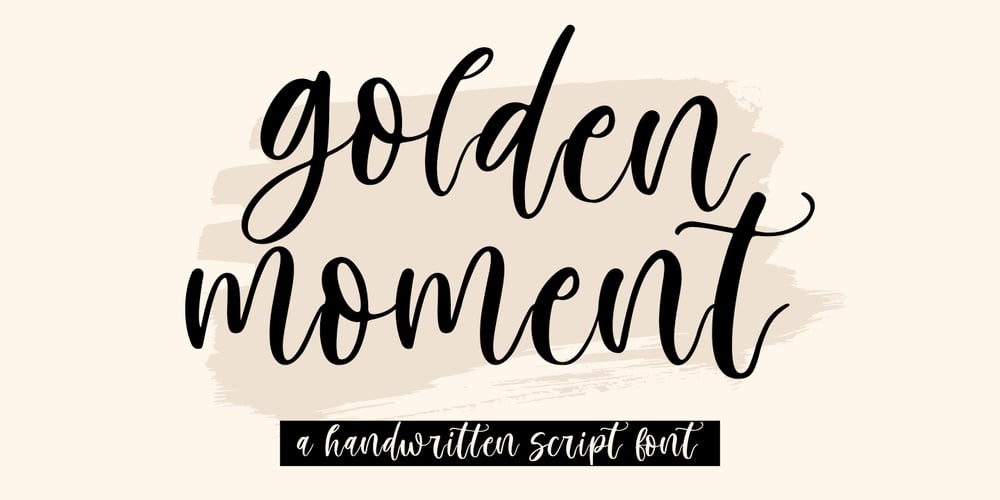
Golden Moment
Golden Moment font
Golden Moment Font Family was designed by Muhammad Mujibulloh and published by MJB Letters. Golden Moment contains 1 styles and family package options. ‘Golden Moment’ a handwritten script font that has multilanguage and PUA encoded, this font is perfect for t-shirt designs, quotes, logos, display, branding, wedding invitations, and more.